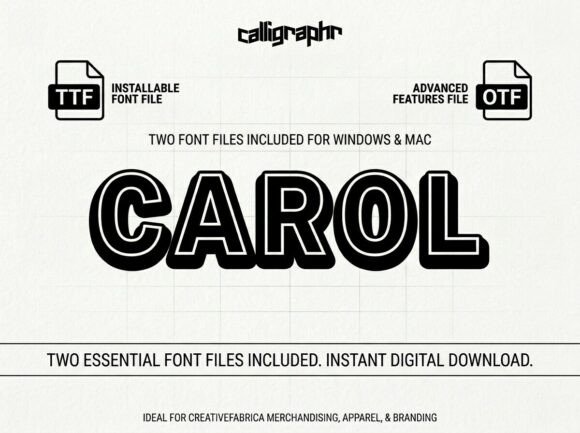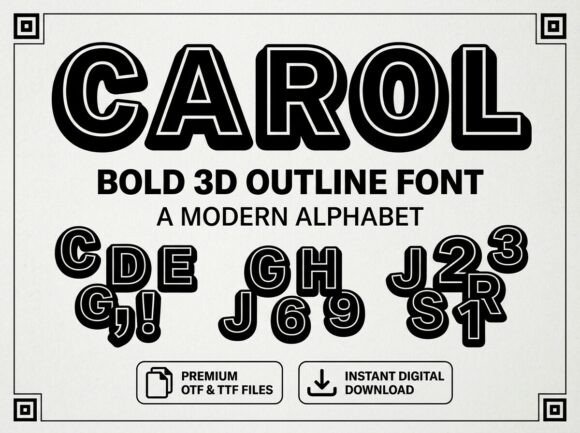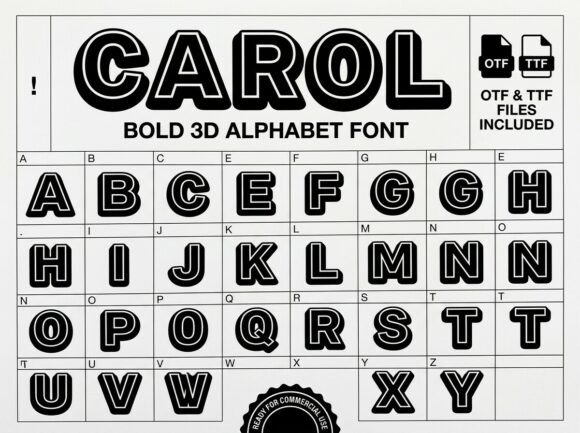
The Ultimate Display Font: Carol Font Review and Guide
I’ll never forget the moment I stumbled upon the perfect font for my design project. I was working on a branding campaign for a trendy boutique hotel, and I needed a font that would make their headlines pop. After hours of scouring through font libraries, I came across Carol Font. Its unique artistic elements and strong visual personality immediately caught my attention. In this article, I’ll share my honest review of Carol Font, a step-by-step guide on how to use it, and some valuable tips for getting the most out of this stunning decorative display font.
What Makes Carol Font Special?
Carol Font is a decorative display font designed to be the center of attention. Its unique artistic elements and strong visual personality make it perfect for creators who want to break away from the ordinary. This font is versatile enough for bold headlines, artistic logos, and creative packaging, while maintaining a professional and polished finish.
- ✨ Unique and artistic design elements that add a touch of elegance to any project.
- ✅ Strong visual personality that grabs attention.
- 🎉 Versatile and can be used for a variety of design projects, from bold headlines to artistic logos.
- 💯 Professional and polished finish that elevates any design.
⚠️ IMPORTANT NOTE BEFORE PURCHASE: This font is an ALL-CAPS (Uppercase Only) display typeface. It does not include lowercase letters. It is specifically designed for high-impact headlines, logos, and decorative initials where every letter is a work of art.
While this may seem limiting, it’s actually a deliberate design choice that makes Carol Font perfect for display purposes. However, it’s essential to consider this when planning your design project.
The Story Behind Carol Font
Carol Font was designed with the intention of creating a unique and eye-catching display font. The designer aimed to craft a font that would be perfect for headlines, logos, and decorative initials. With its artistic elements and strong visual personality, Carol Font is sure to make a statement in any design project.
| Q: Is Carol Font suitable for body text? | A: No, Carol Font is a display font designed for headlines, logos, and decorative initials. It’s not suitable for body text due to its all-caps design and artistic elements. |
| Q: Does Carol Font include OpenType features? | A: Yes, Carol Font supports OpenType features, including glyphs and stylistic alternates. You can access these features in compatible design software, such as Adobe Creative Cloud applications. |